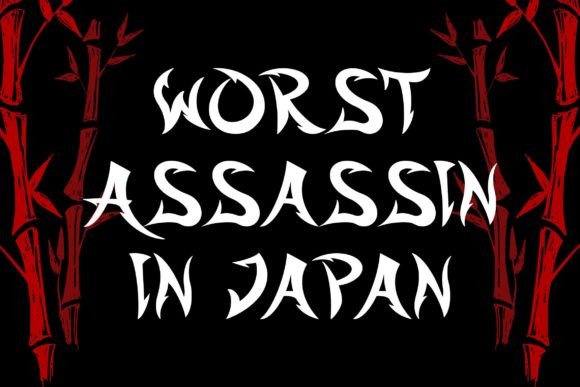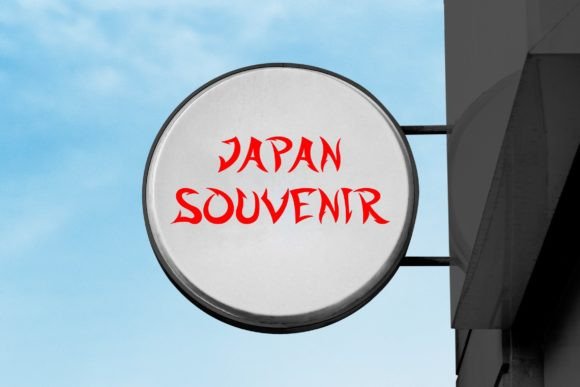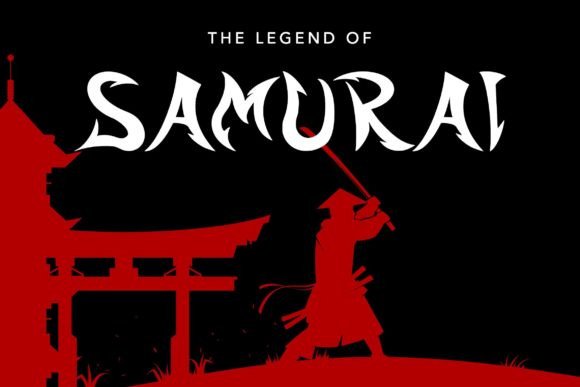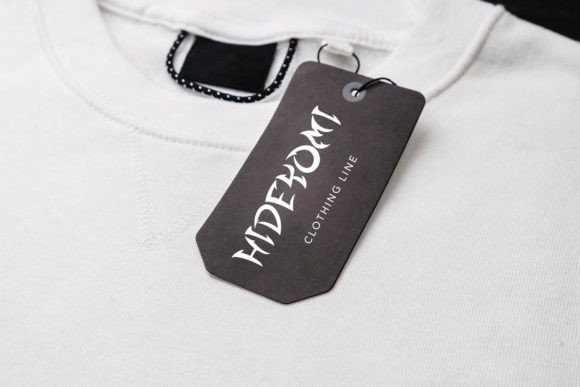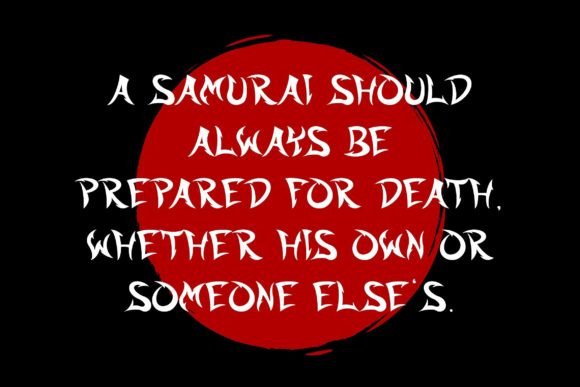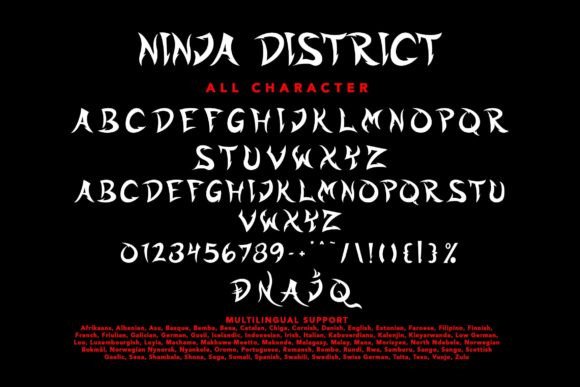
Introduction to Ninja District Font
Have you ever stared at a blank page, trying to spark that elusive creative idea? For designers, moments like these are a familiar frustration. But what if your work could suddenly transform into a vibrant, eye-catching masterpiece? That’s where the Ninja District Font comes in – a high-quality, Japanese display font designed to add a touch of magic to your creative project.
With its sleek, modern design and transparent background, the Ninja District Font is the perfect design resource for anyone looking to elevate their work. Whether you’re a seasoned pro or just starting out, this font will give you the freedom to experiment and push the boundaries of your creativity. And the best part? It’s available for free download, making it an invaluable asset for designers on a budget.
So why settle for ordinary when you can have extraordinary? With the Ninja District Font, you’ll be able to bring your most ambitious ideas to life with style and sophistication. Let the Ninja District Font be your secret ingredient for creating truly unforgettable designs.
Ninja District Font
- Unique blend of Asian-inspired and modern elements, perfect for creative projects.
Honest Review: Ninja District Font
I recently came across the Ninja District Font and was excited to give it a try in my latest creative project. The font has a sleek and modern design that I think will really elevate my work.
- ✨ The font is available in a range of weights and styles, making it super versatile for use in a variety of projects.
One thing I wish was different is the limited number of characters available. While this isn’t a deal-breaker, it does limit the font’s usability in certain situations ⚠️.
Overall, I’m really impressed with the Ninja District Font. It’s a high quality design resource that’s perfect for designers looking for a modern and sleek font. I would definitely recommend it to others.
The Ninja District Font is ideal for use in:
1. Logo design: The font’s unique and stylish design makes it perfect for creating eye-catching logos.
2. Brochures and flyers: Use the font to add a touch of sophistication to your marketing materials.
3. Social media graphics: The font’s high-quality design makes it perfect for creating engaging social media graphics.